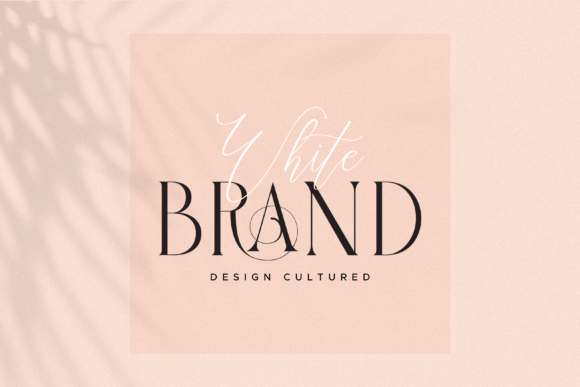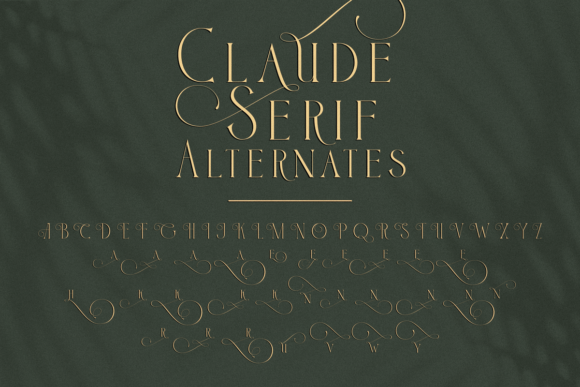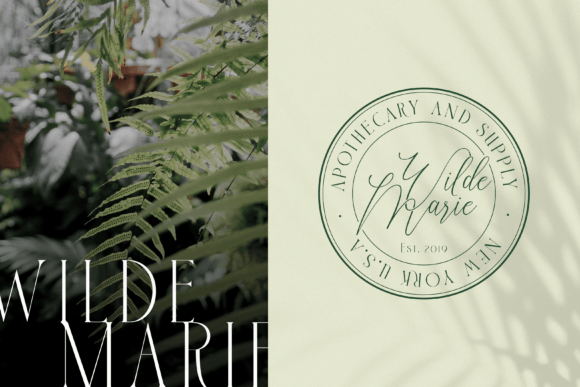
I still remember the frustration of working on a project, hours spent on designing the perfect layout, only to hit a roadblock when it came to choosing the right font. My client wanted something elegant yet playful, and I was stuck. That’s when I discovered Claude Font, a beautiful duo font that combines a serif and script font, giving me the creative freedom to experiment and create something truly original.
An Honest Review of Claude Font
- ✨ Elegant and playful design that works well for a variety of projects
- ✅ Easy to read and versatile, making it perfect for body text and headings
- 💻 OpenType features and glyphs that allow for creative experimentation
- 🎉 Stylistic alternates that add a touch of whimsy to your designs
While Claude Font is an amazing duo font, there are a few things to keep in mind:
- 🤔 Some characters may not work well in smaller font sizes, so be sure to test it out
- ⚠️ Limited language support, so check the character set before using it for a specific project
The Designer Inspiration Behind Claude Font
Claude Font was designed with the creative hobbyist in mind. The designer wanted to create a font that was both elegant and playful, with a touch of whimsy. The result is a beautiful duo font that’s perfect for a variety of projects, from branding and editorial design to crafting and DIY projects.
Q: What is Claude Font?
Claude Font is a beautiful duo font that combines a serif and script font, giving you the creative freedom to experiment and create something truly original.
Q: Is Claude Font suitable for body text?
Yes, Claude Font is designed to be easy to read and versatile, making it perfect for body text and headings.